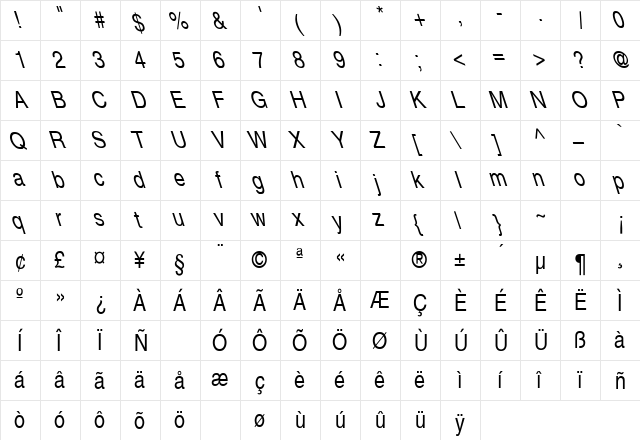
Helvetica-Narrow Lefty Regular
Design Context for Helvetica-Narrow Lefty Typeface
Helvetica-Narrow Lefty offers clean, dependable letterforms without strong stylistic allegiance, making it a practical choice for designers who need flexibility. Its narrow stance lets it pack a punch even in space-constrained designs.